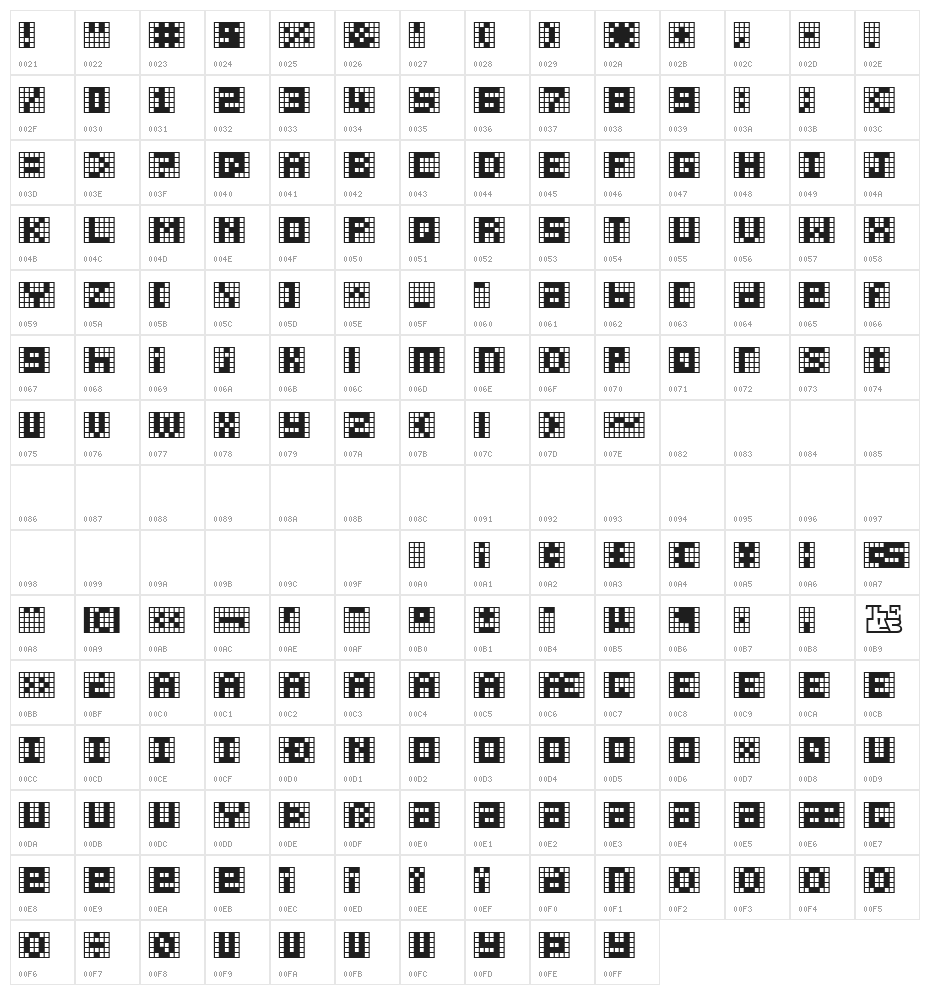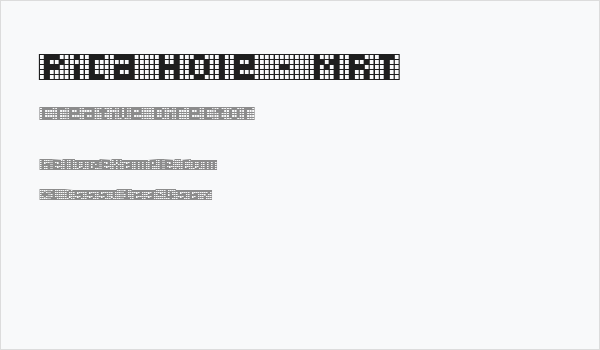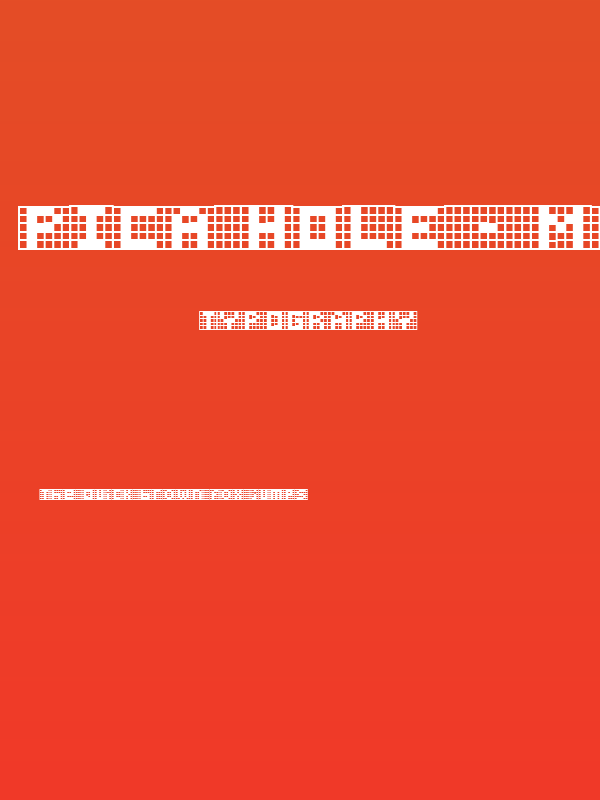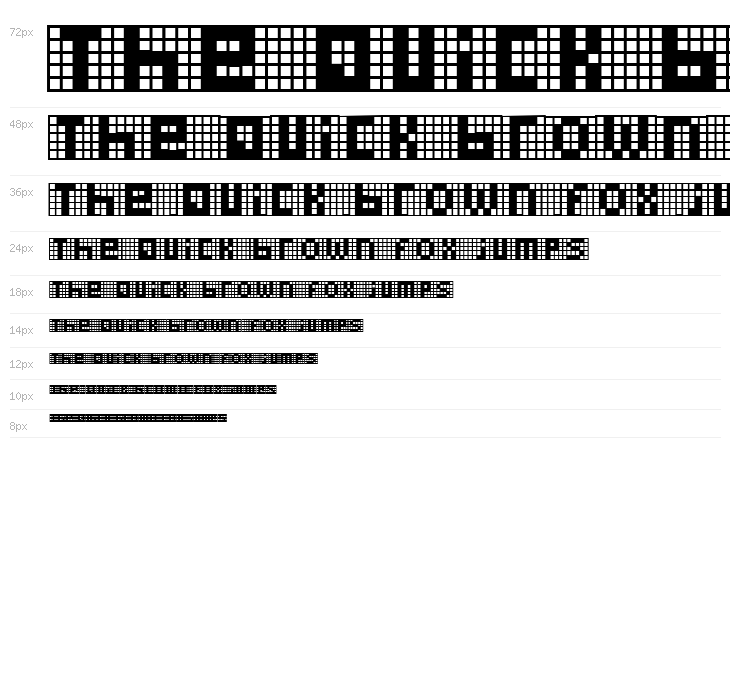
Pica Hole - MRT Font
Pica Hole - MRT Description
This font features a unique pixelated design, reminiscent of early digital displays or retro video games. Each character is constructed from a grid of small squares, creating a blocky and geometric appearance. The uniformity of the grid gives the font a monospaced feel, with each letter and number occupying the same amount of space. Despite its rigid structure, the font maintains legibility and a distinct style that is both nostalgic and modern. The characters are bold and prominent, making them suitable for attention-grabbing designs. The font's playful yet structured aesthetic makes it ideal for projects that aim to evoke a sense of nostalgia or digital innovation.
| Overall Style | Retro, Digital |
| Proposed Projects | Ideal for retro video game designs, digital art projects, tech-themed posters, and any creative work that requires a nostalgic or digital look. |